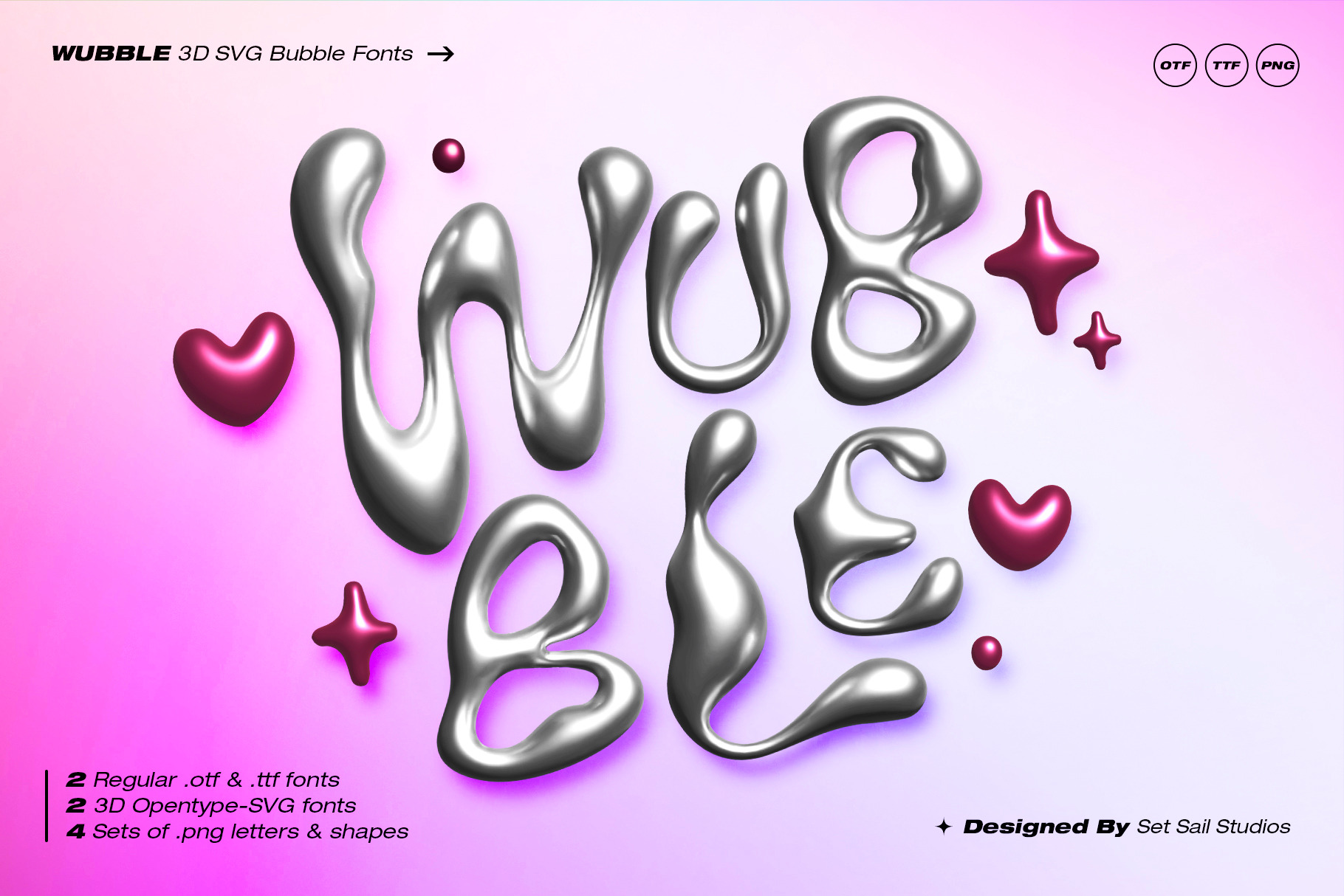
Wubble SVG Font & Letterset
Dig out your Nokia and Tamagotchi beacuse I’m dragging some Y2K influenced bubble typography into the present day! This irresistible 3D letter set is provided as both a type-able font and a .png letterset, in 5 different pre-made styles. Oh, and yeah, I actually did call it Wubble 😎.
Wubble Consists of a full set of upper and lowercase bubble characters, including numerals, punctuation, and multilingual support. It also includes a set of 50 swashes and shapes to compliment your bubble text.
2 Regular Fonts (.ttf/.otf) • Includes the full set of Wubble letters, as well as a separate font including the swashes and shapes. The regular fonts are in a traditional font format and are widely supported, but do not have the built-in 3D bubble effect.
4 Image Lettersets (.png) • The full set of 3D Wubble letters, swashes and shapes are also included as separate .png images on a transparent background, which are widely supported by graphics programs. This includes all characters for all 4 3D styles (Pink, Gold, Silver and Bubble). See video for changing colour in Photoshop; https://youtu.be/WM_inj77K1s